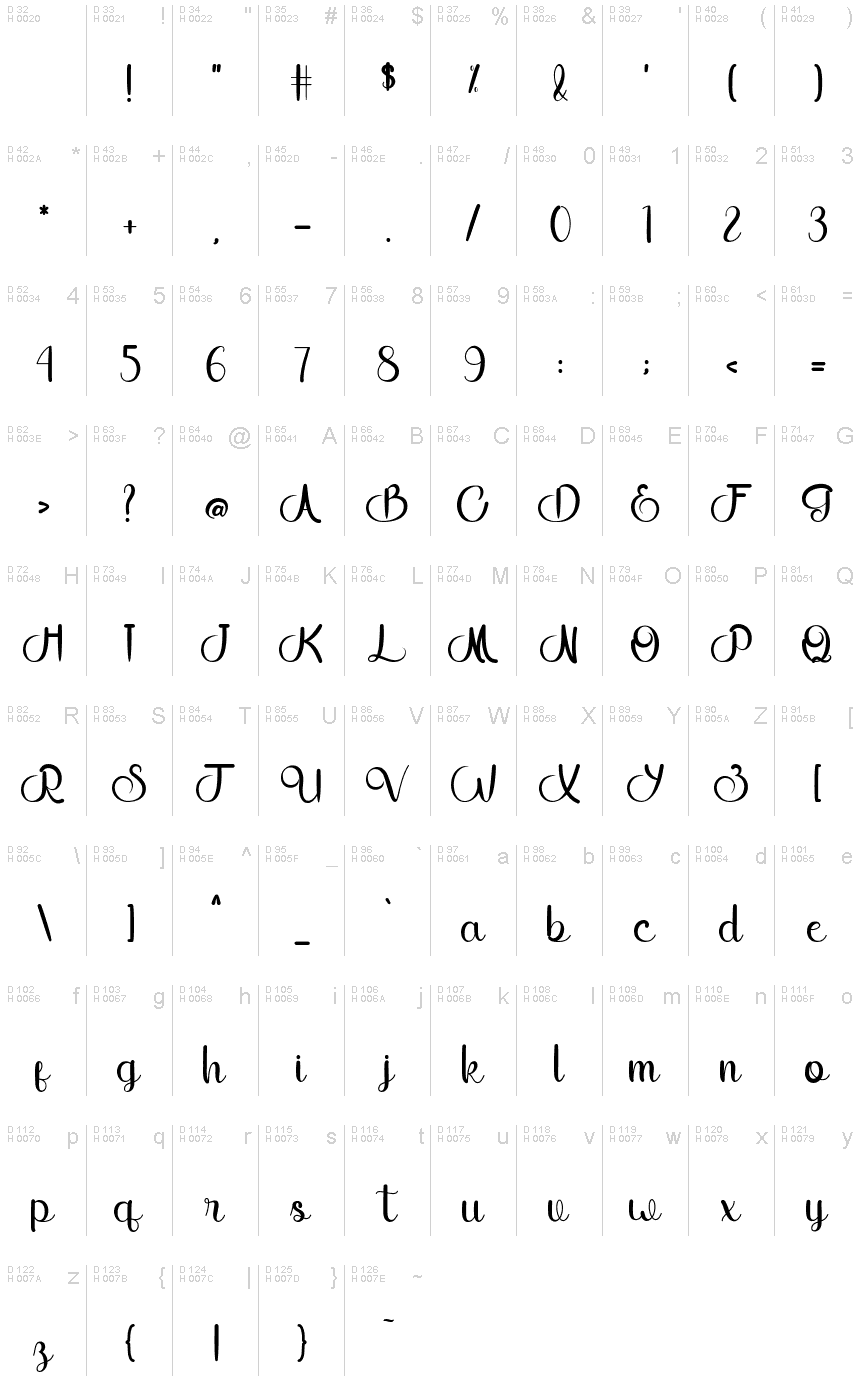
Elly Demo Regular
Elly is a charming handwritten font designed by Suamzu Art. Its lovely style adds a personal touch to any project, making it perfect for invitations, greeting cards, and other personalized stationery. With its semi-bold width and easy-to-read design, Elly is also ideal for social media graphics, blog posts or even branding materials for creative businesses. Whether you're looking to create an elegant wedding invitation or a playful Instagram post, Elly's delightful charm is sure to captivate your audience. Add some whimsy to your designs with the endearing Elly font!